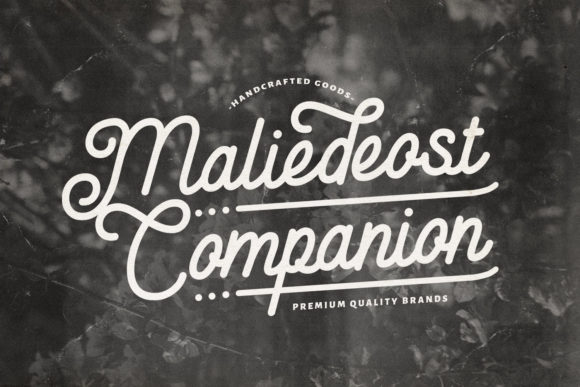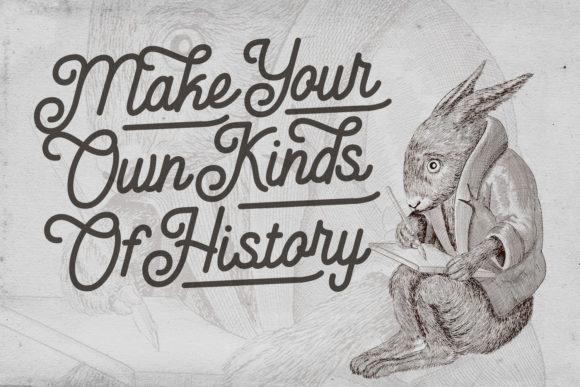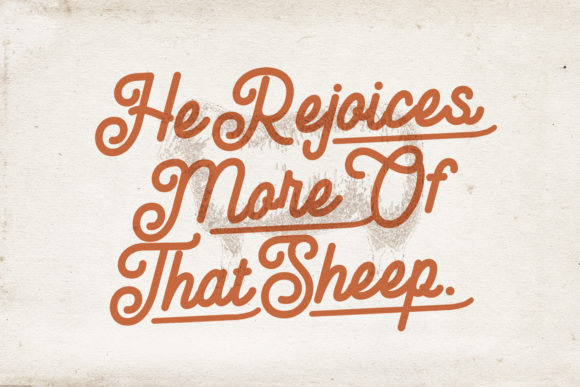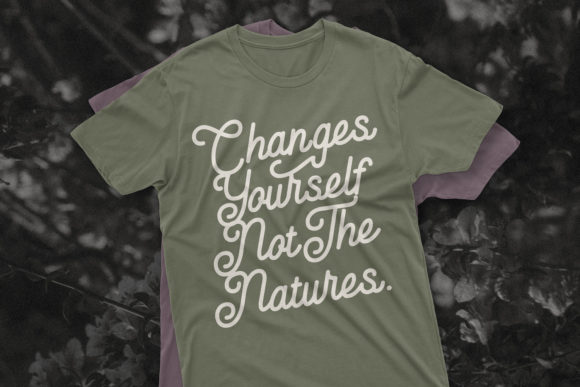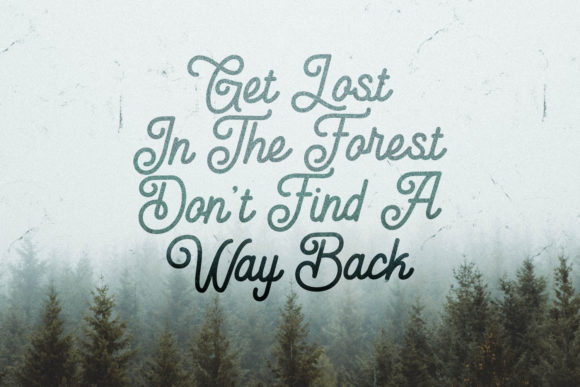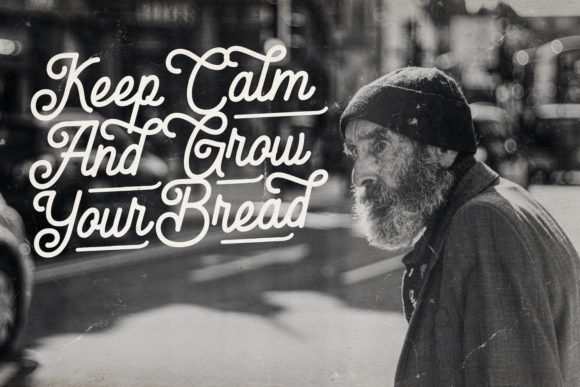
Introducing Anelka Fambuya Font: The Perfect Monoline Script Font for Your Brand
Are you looking for a font that exudes elegance, sophistication, and a touch of retro vintage style? Look no further than Anelka Fambuya Font. This stunning monoline script font is perfect for designers and crafters who want to add a unique and stylish touch to their brand, logo, or creative project.
What is Anelka Fambuya Font?
Anelka Fambuya Font is a beautifully crafted monoline script font that features a retro vintage style. Its sleek and modern design makes it perfect for a wide range of applications, from fashion brands and apparel to wedding invitations and business cards. The font’s elegant and cursive lines will add a touch of sophistication to any design, making it stand out from the crowd.
Key Features of Anelka Fambuya Font
- Monoline Script Font: Anelka Fambuya Font is a monoline script font, which means that it features smooth and connected lines that create a flowing and elegant look.
- Retro Vintage Style: The font’s retro vintage style gives it a unique and distinctive look that will add a touch of nostalgia to any design.
- Highly Versatile: Anelka Fambuya Font is highly versatile and can be used for a wide range of applications, from fashion and apparel to wedding invitations and business cards.
- Elegant and Sophisticated: The font’s elegant and sophisticated design makes it perfect for brands that want to convey a sense of luxury and refinement.
Perfect for Fashion Brands and Apparel
Anelka Fambuya Font is perfect for fashion brands and apparel companies that want to add a touch of elegance and sophistication to their designs. The font’s sleek and modern design makes it ideal for:
- Fashion brand logos: Use Anelka Fambuya Font to create a stunning logo for your fashion brand that will set you apart from the competition.
- Apparel designs: Add a touch of elegance to your apparel designs with Anelka Fambuya Font, perfect for t-shirts, hoodies, and more.
- Shoes company branding: Use Anelka Fambuya Font to create a unique and stylish brand identity for your shoes company.
Ideal for Wedding Invitations and Stationery
Anelka Fambuya Font is also perfect for wedding invitations and stationery. The font’s elegant and sophisticated design makes it ideal for:
- Wedding invitations: Use Anelka Fambuya Font to create beautiful and elegant wedding invitations that will set the tone for your special day.
- Business cards: Add a touch of sophistication to your business cards with Anelka Fambuya Font, perfect for professionals and entrepreneurs.
Perfect for Business Branding
Anelka Fambuya Font is also perfect for business branding, including:
- Logo brand: Use Anelka Fambuya Font to create a stunning logo for your business that will help you establish a strong brand identity.
- Barber shop or taylor branding: Add a touch of elegance and sophistication to your barber shop or taylor branding with Anelka Fambuya Font.
In conclusion, Anelka Fambuya Font is a stunning monoline script font with a retro vintage style that is perfect for designers and crafters who want to add a unique and stylish touch to their brand, logo, or creative project. Its elegant and sophisticated design makes it highly versatile and ideal for a wide range of applications, from fashion brands and apparel to wedding invitations and business cards. With Anelka Fambuya Font, you can create stunning designs that will help you stand out from the crowd and establish a strong brand identity.